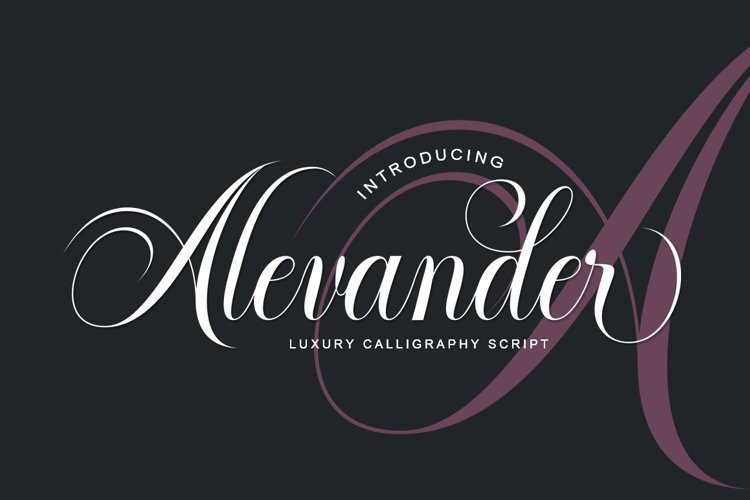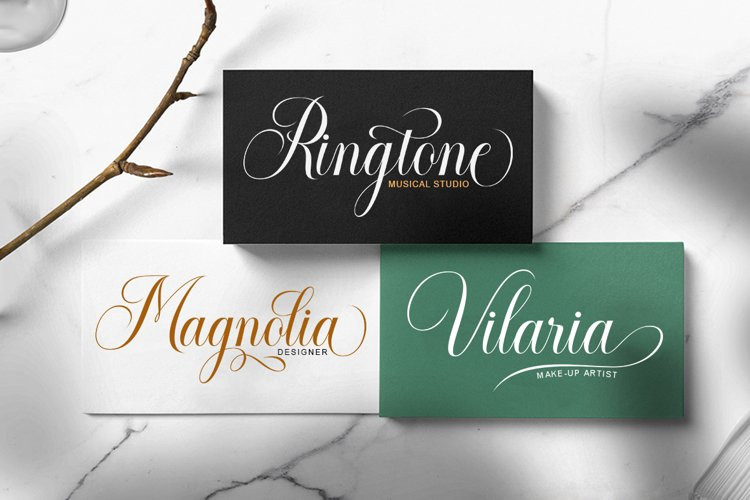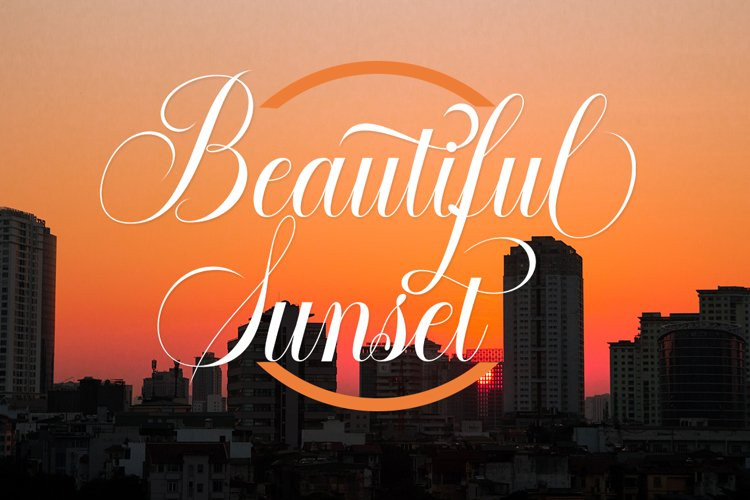
Alevander Font
Alevander FontIntroducing Alevander Script
Alevander Script is a classic calligraphy font. This is a classic thin font with an italic style. Here will get a beautiful classic font. This font has several modern swirls that can make work look elegant, sweet and perfect.
With a style like this, this font would be perfect for logos, branding projects, homeware designs, product packaging, mugs, quotes, posters, shopping bags, logos, t-shirts, book covers, business cards, invitation cards, greeting cards, and more. all other beautiful projects.